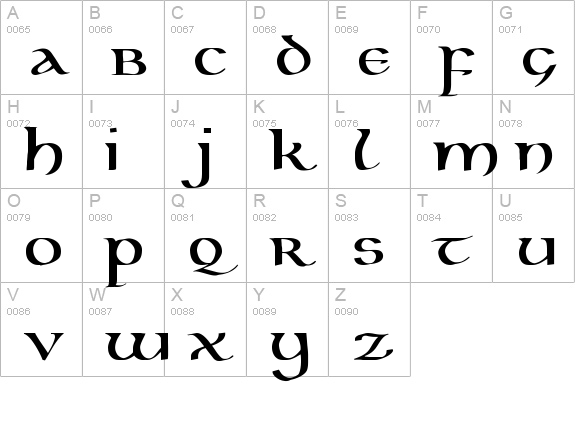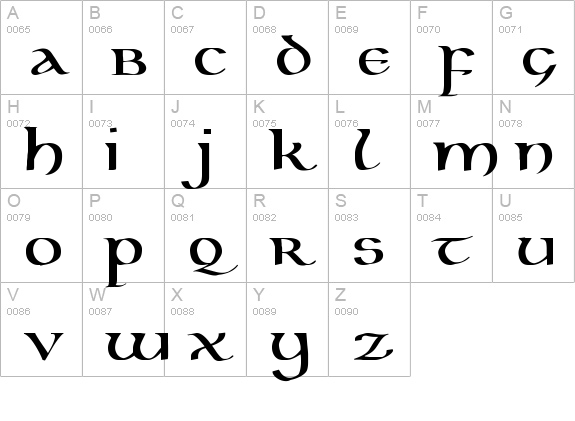
Kells Uncial - DGL Bold is a strong, high-contrast variant in the Kells typeface family \xE2\x80\x94 well suited to headlines, attention-grabbing titles, and strong calls-to-action.
Introducing Kells Uncial - DGL Bold font, a captivating typeface that seamlessly blends tradition and modernity. This exquisite font draws inspiration from the ancient Irish script, best known for its intricate knots and loops. Kells Uncial - DGL Bold font exudes an air of elegance and sophistication, making it the perfect choice for projects that require a touch of timeless beauty. Its strong and bold letterforms command attention while maintaining a sense of grace and fluidity. With its generous x-height and well-balanced proportions, Kells Uncial - DGL Bold font is highly readable, ensuring that your message will be conveyed with clarity and impact. Whether you're designing invitations, creating logos, or crafting headlines, this font will effortlessly elevate your work to new heights. One of the most remarkable aspects of Kells Uncial - DGL Bold font is that it is available for free download at FontsMarket.com. This means that you can enjoy the beauty and versatility of this font without having to worry about any additional costs. It's a fantastic opportunity to enhance your design projects with a stunning typeface that won't break the bank. So why wait? Elevate your designs and captivate your audience with Kells Uncial - DGL Bold font. Download it for free today at FontsMarket.com and unlock a world of possibilities for your creative endeavors.